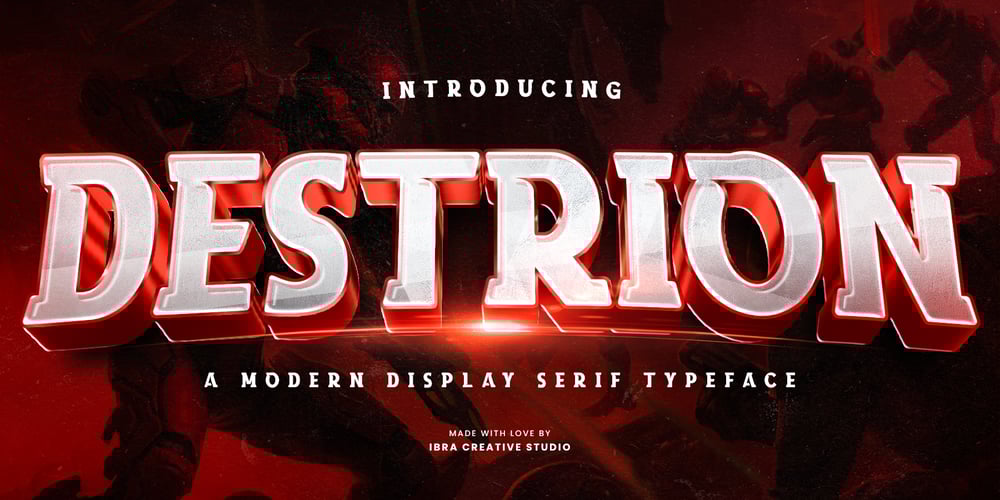
Destrion
Destrion font
Destrion Font Family was designed by Roisatul Azizah and published by IbraCreative. Destrion contains 1 styles and family package options. Destrion – A Modern Display Serif TypefaceDestrion, a contemporary display serif typeface, seamlessly blends classic elegance with a modern aesthetic, making it a distinctive choice for various design applications. With its refined letterforms, Destrion exudes sophistication and versatility, making it suitable for both digital and print media. The typeface strikes a balance between tradition and innovation, featuring distinctive serifs that add a touch of timeless charm while incorporating sleek, contemporary details. Destrion’s well-crafted characters exhibit a harmonious balance between readability and artistic flair, making it an ideal choice for headlines, logos, and editorial design where a touch of refined personality is desired. The typeface’s unique personality and attention to detail set it apart, making Destrion a compelling choice for designers seeking a modern display serif that effortlessly captures attention and conveys a sense of timeless style.Destrion is perfect for branding projects, logo, wedding designs, social media posts, advertisements, product packaging, product designs, label, photography, watermark, invitation, stationery, game, fashion and any projects.Fonts include multilingual support for; Afrikaans, Albanian, Czech, Danish, Dutch, English, Estonian, Finnish, French, German, Hungarian, Italian, Latvian, Lithuanian, Norwegian, Polish, Portuguese, Slovak, Slovenian, Spanish, Swedish.